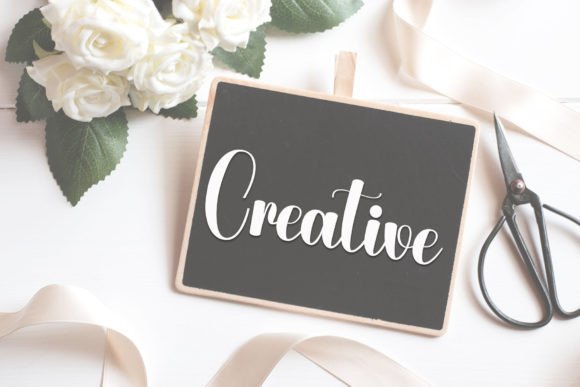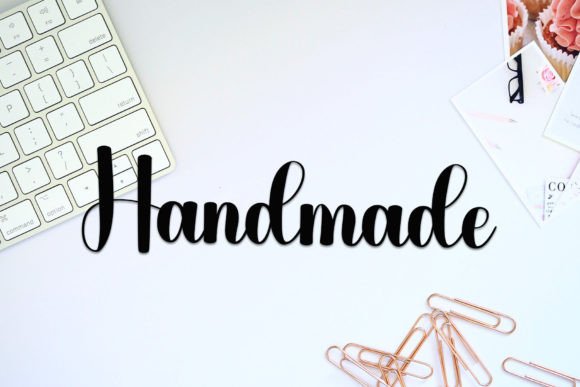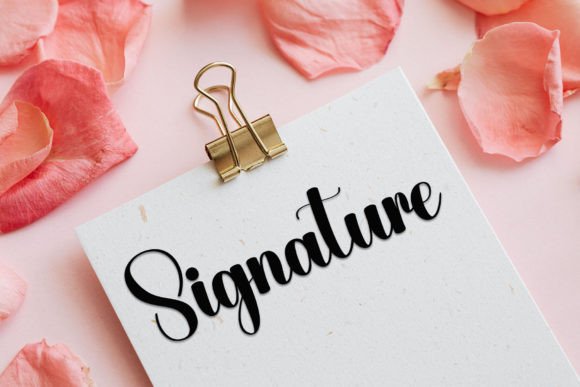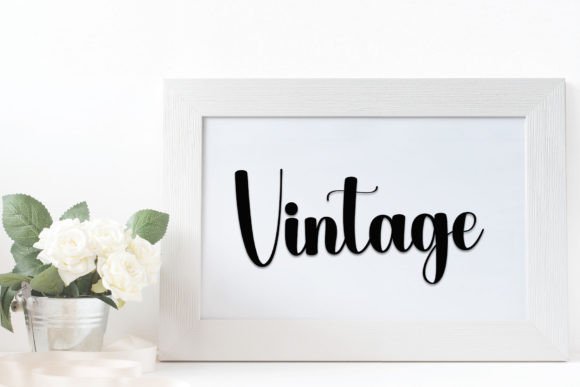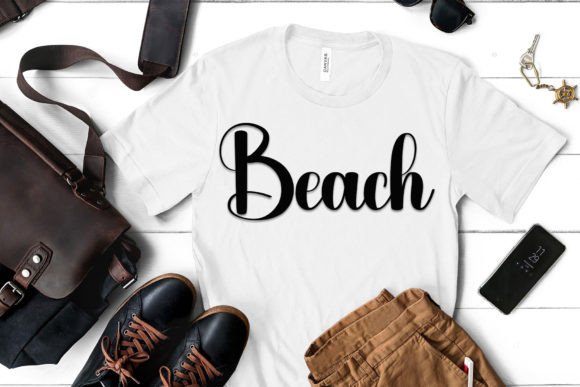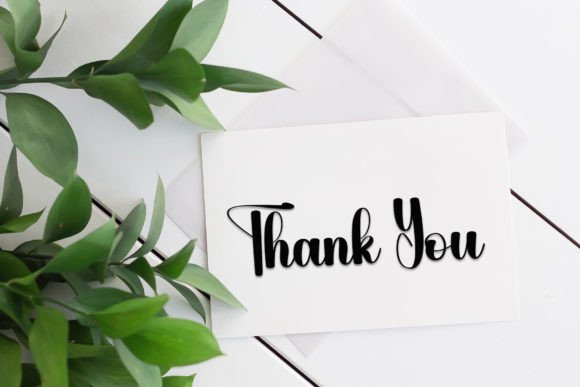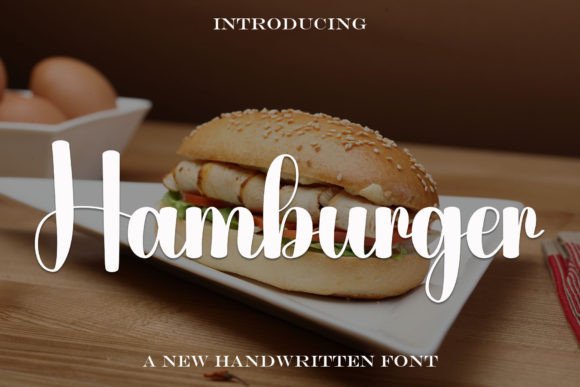
Hamburger Font: Elevate Your Designs with Elegance and Timeless Style
Are you on the hunt for a font that exudes elegance, sophistication, and a touch of timeless charm? Look no further than the Hamburger font. This beautiful handwritten font has captured the hearts of designers and crafters alike with its incredibly distinct style, making it the perfect addition to your favorite projects.
What is Hamburger Font?
Hamburger font is a neat and beautiful handwritten font that boasts an elegant touch, setting it apart from other fonts in its category. Its unique and refined style makes it an excellent choice for designers looking to add a touch of sophistication to their work. Whether you’re working on a branding project, a wedding invitation, or a craft design, Hamburger font is sure to impress.
Key Features of Hamburger Font
- Elegant and Refined: Hamburger font features an elegant and refined style that adds a touch of sophistication to any design.
- Timeless Style: The font’s classic and timeless style ensures that your designs will remain relevant for years to come.
- Incredibly Distinct: Hamburger font’s unique and distinct style sets it apart from other fonts, making it perfect for designers looking to create memorable designs.
- Handwritten: The font’s handwritten nature adds a personal touch to your designs, making them more relatable and engaging.
Why Choose Hamburger Font?
So, why should you choose Hamburger font for your next project? Here are just a few reasons:
- Versatility: Hamburger font is incredibly versatile, making it suitable for a wide range of projects, from branding and advertising to crafting and DIY.
- Easy to Read: The font’s clear and legible style ensures that your message is communicated effectively, making it perfect for designs that require a high level of readability.
- Customizable: Hamburger font can be easily customized to fit your project’s unique needs, allowing you to experiment with different styles and effects.
Using Hamburger Font in Your Designs
Using Hamburger font in your designs is easy. Here are a few tips to get you started:
- Pair it with Other Fonts: Hamburger font pairs well with other fonts, making it easy to create visually appealing combinations.
- Experiment with Colors: The font’s elegant style looks great in a variety of colors, so don’t be afraid to experiment and find the perfect hue for your design.
- Use it for Headings and Titles: Hamburger font is perfect for headings and titles, adding a touch of elegance and sophistication to your designs.
Hamburger font is perfect for designers and crafters looking to add a touch of elegance and sophistication to their work. Whether you’re working on a professional project or a personal craft, this beautiful handwritten font is sure to impress.
Designers can use Hamburger font to:
- Create stunning branding and advertising materials
- Design elegant and sophisticated wedding invitations and stationery
- Develop eye-catching packaging and product labels
Crafters can use Hamburger font to:
- Create beautiful handmade cards and invitations
- Design stunning scrapbooking pages and photo albums
- Develop unique and personalized gifts and crafts
In conclusion, Hamburger font is a beautiful and elegant handwritten font that is perfect for designers and crafters looking to add a touch of sophistication to their work. Its incredibly distinct and timeless style makes it an excellent choice for a wide range of projects, from branding and advertising to crafting and DIY. So why wait? Fall in love with Hamburger font and use it to create spectacular designs that will leave a lasting impression.